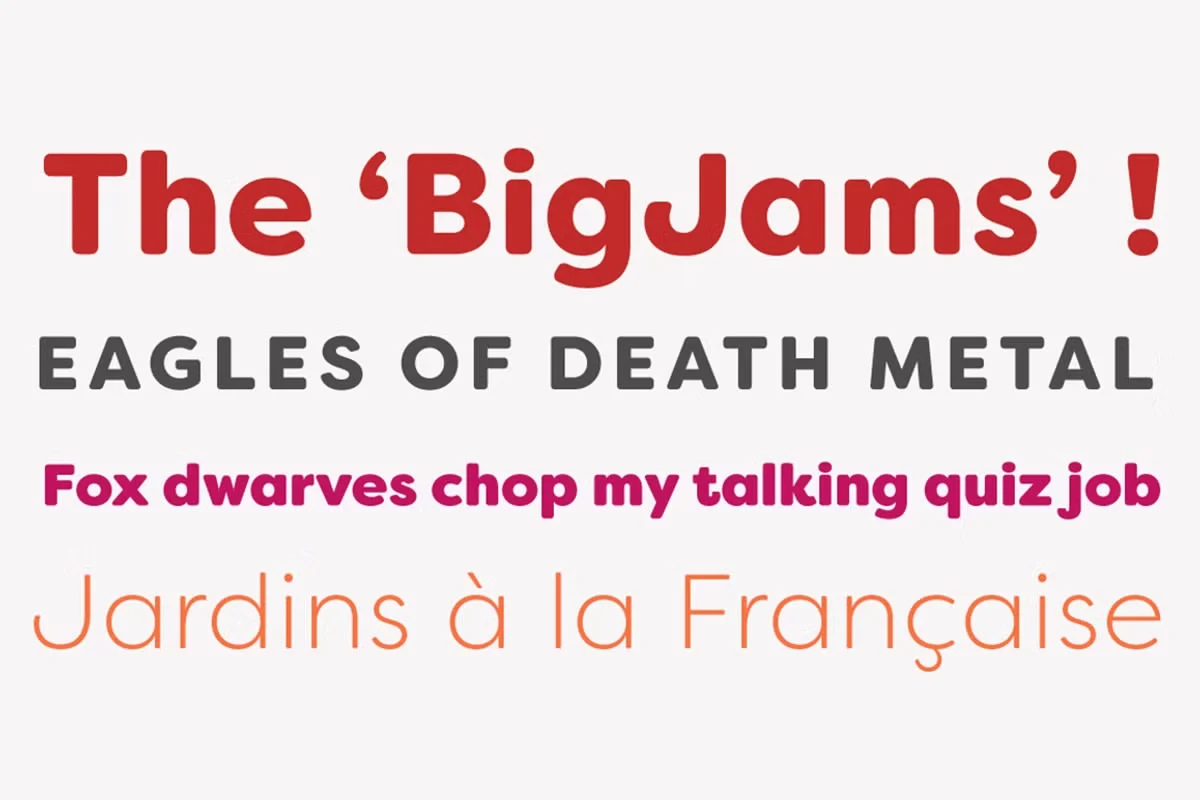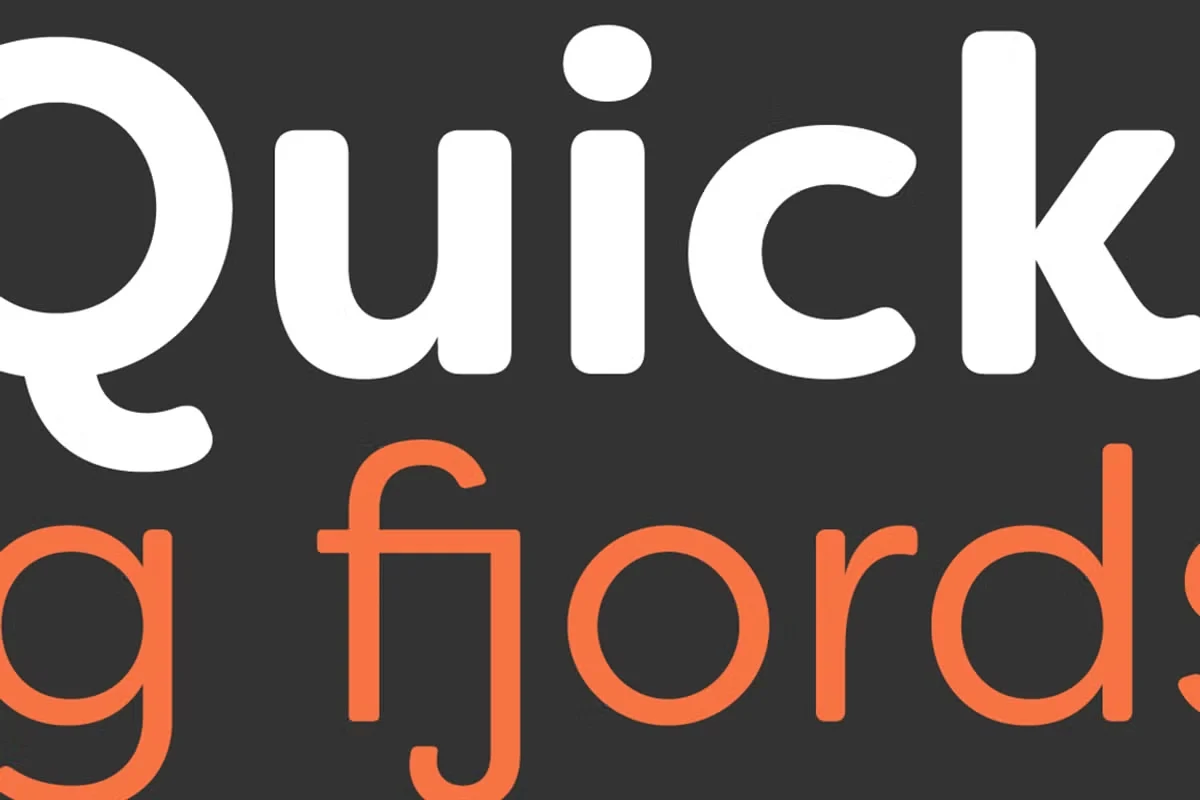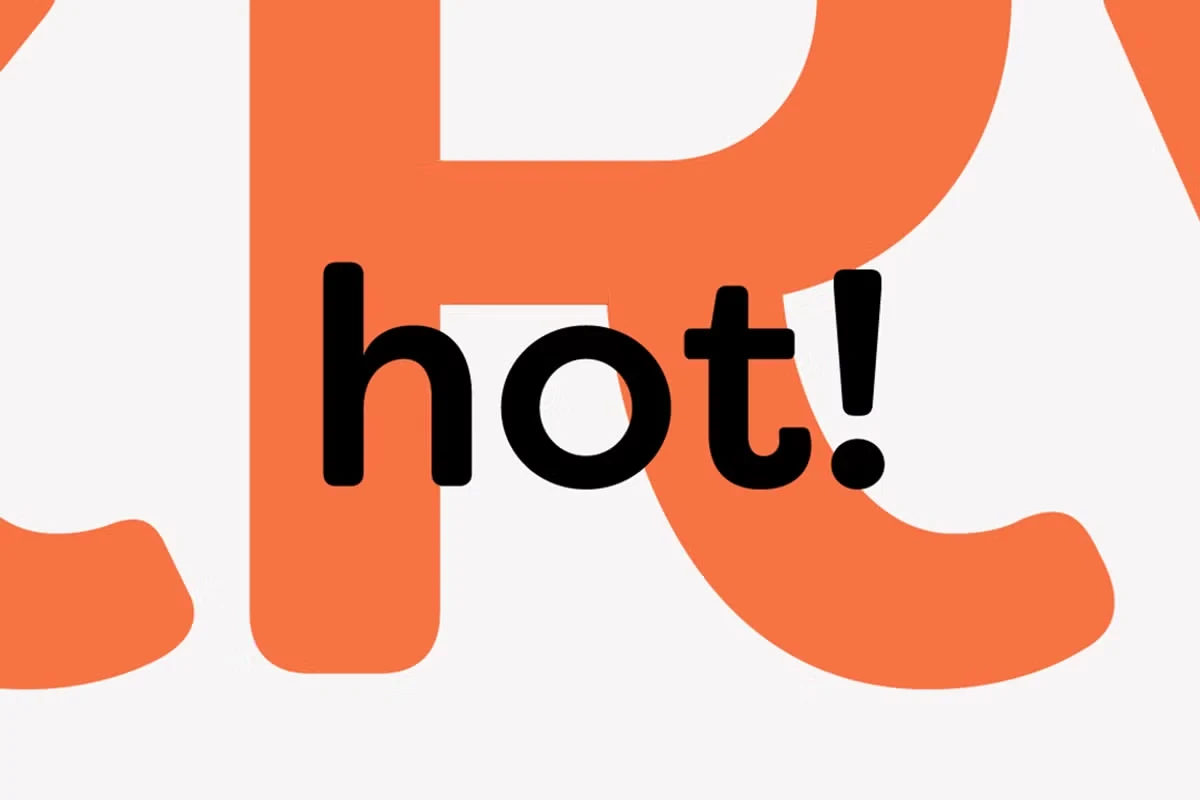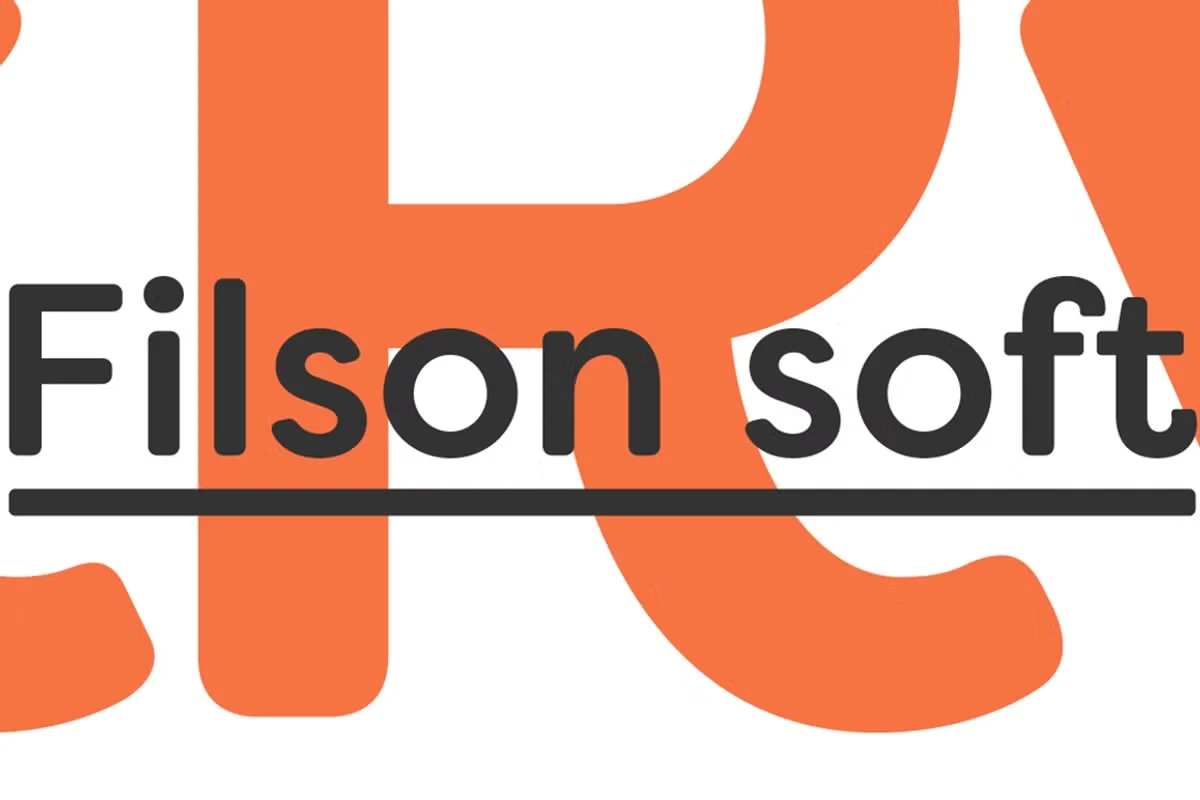
Filson Soft Font
Filson soft font
About Filson Soft Font
I’m a typographer and graphic designer who loves working with geometric typefaces. While creating a branding project, I discovered the Filson Soft Font and immediately saw its potential. Its rounded forms and distinctive shapes stood out during testing.
I applied it to a set of social media graphics and packaging layouts, and the results were both elegant and approachable. The way it balanced professionalism with a friendly aspect made it a great choice for my project. That hands-on experience convinced me to share my review so other designers can see why this typeface is worth exploring.
The Font Type and the Designer
Filson Soft is a geometric sans serif font family designed by Olivier Gourvat of Mostardesign Type Foundry. It is the rounded counterpart of the popular Filson Pro, designed to give a softer and friendlier impression while keeping its professional tone. Released in 2009, the font has become part of a versatile collection that also includes families such as Sofia Pro and Metronic Slab Pro.
At first sight, the main feature of Filson Soft is its distinctive letters K, Q, and especially R. These details, combined with its rounded terminaisons, give the typeface originality and charm. It feels elegant yet accessible, making it suitable for modern branding projects and long-term identity systems.
The Filson Soft font family includes 16 styles with 8 weights from Thin to Heavy, each paired with an italic version. The family covers a wide range of uses, from editorial work to logos, with flexibility across digital and print media.
This font was crafted with high attention to typographic precision. It includes extensive OpenType features, multilingual support, and professional kerning. Filson Soft is distributed across platforms like Adobe Fonts, making it accessible to creative teams worldwide.
Features of This Font
One of the strongest features of the Filson Soft Font is its professional range of OpenType functions. Designers get access to lining and oldstyle figures, stylistic alternates, case-sensitive forms, localized forms, arrows, stylistic sets, and f-ligatures. These details allow better typographic control and adaptability for any project.
Filson Soft also comes with thousands of kerning pairs, which ensures excellent spacing across all weights. The large x-height makes it highly legible, even at smaller sizes. This balance of readability and elegance makes the font versatile across branding, web, and editorial uses.
Its geometric structure gives it a modern and minimal look, but the rounded terminaisons soften the overall tone. This friendly aspect makes it approachable compared to sharper geometric sans fonts. Combined with its stylistic alternates, Filson Soft manages to look both professional and personable.
The family includes 16 fonts from Thin to Heavy, covering every weight a designer might need. Variable font support adds even more flexibility. Whether you are working on packaging, mobile UI, websites, or printed materials, Filson Soft adapts without losing its elegance. It is a font family with a lot of charm, versatility, and a touch of sophistication.
Filson Soft adapts well to branding projects that need a balance of elegance and friendliness. Its rounded details make logos approachable while keeping a professional tone. The wide range of weights allows designers to use it across headlines, subheadings, and body text without breaking consistency.
In editorial and publishing projects, the large x-height and OpenType features provide excellent readability. Designers can apply lining figures for data-heavy reports or use stylistic alternates for unique magazine titles.
On digital platforms, Filson Soft performs smoothly across desktop, mobile, and web. Its compatibility with Adobe Fonts and modern software makes it easy to embed into websites and digital products. With multilingual support covering over 80 languages, it’s also a reliable choice for global brands.
Its versatility makes it perfect for packaging design, advertising, and corporate communication. It has the strength for bold headlines and the refinement for detailed typography. Whether you are creating posters, digital ads, UI layouts, or large branding systems, Filson Soft is adaptable enough to handle them all.